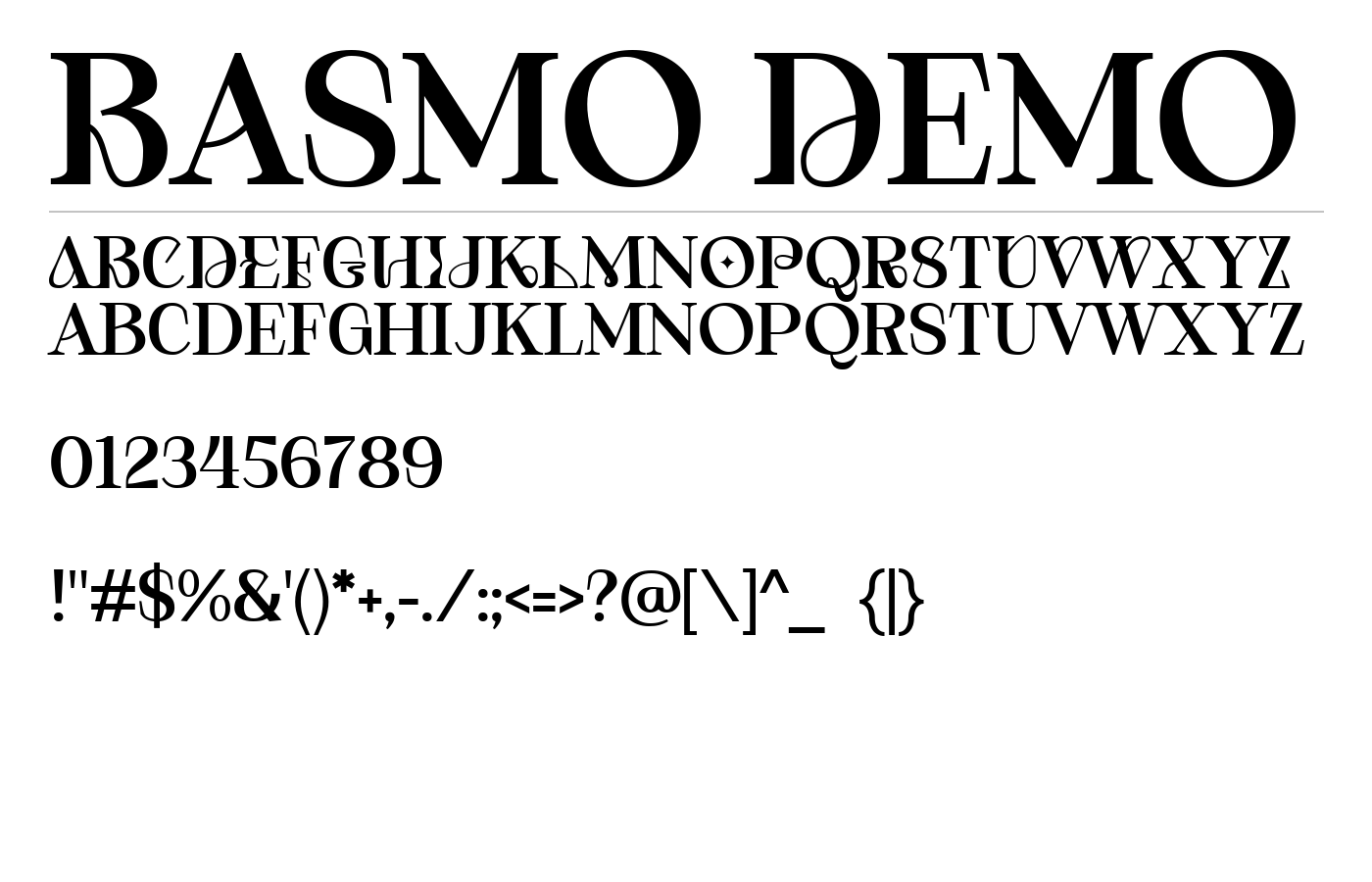
Basmo is a distinctive serif font with a high contrast between thick and thin strokes, featuring elegant and sharp letterforms that blend classic sophistication with a creative twist. Its unique character details and refined shapes make it perfect for luxury branding, editorial headlines, and stylish packaging, where a touch of personality and elegance is essential. This font balances traditional serif beauty with artistic flair, creating a modern yet timeless appeal.
Basmo Font
About Basmo Font